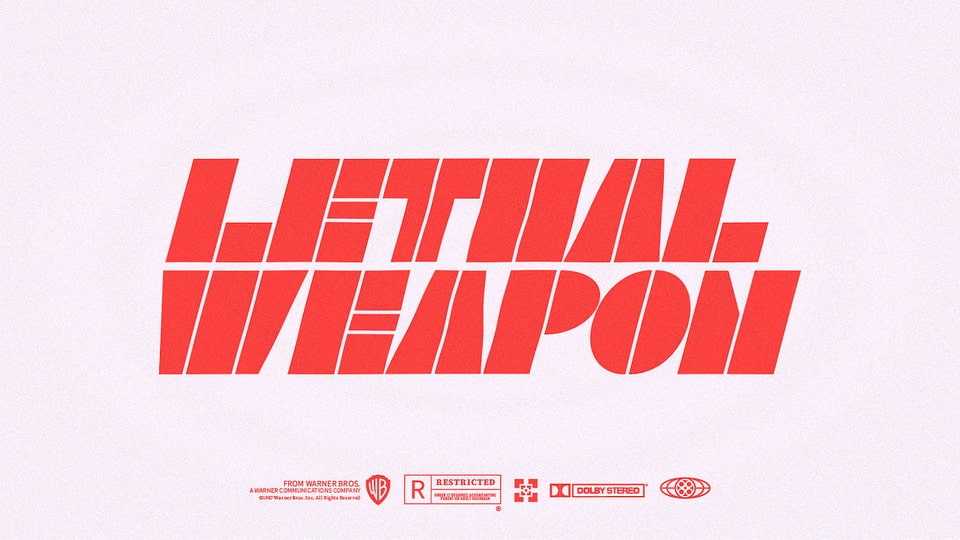
Download Retro Weapon font, a bold geometric display typeface with a retro vibe. This is a rework/revival of a type that only appeared in the title sequence of the first-ever trailer for Lethal Weapon (1987).
Designer: Siim Tikk